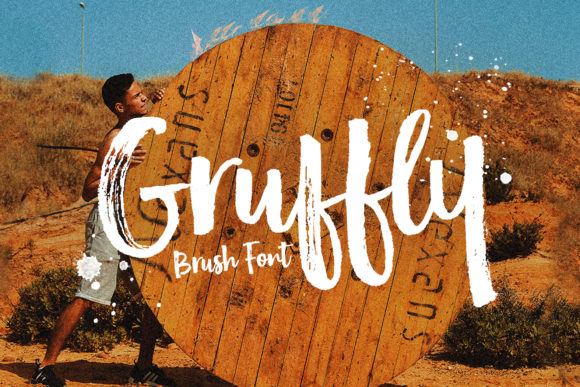
**Introducing Gruffly: Unleash Your Wild and Sassy Side with Our Boldest Script Font**
Prepare to embark on a thrilling typographic adventure with Gruffly, the font that embodies the raw energy of untamed spirits. Crafted with meticulous attention to detail by the masterminds at Stripes Studio, this script font is a masterpiece of rough-hewn charm that will leave you spellbound.
Gruffly is a font that refuses to be tamed, a wild stallion galloping across the digital plains. Its bold strokes dance upon the page, capturing the untamed essence of human emotion. Whether you're crafting a wild and captivating poster or designing a logo that roars with personality, Gruffly is the perfect font to unleash your inner rebel.
With every letterform imbued with a touch of sass and a hint of mischief, Gruffyly invites you to break free from the mundane and embrace your wild side. Its rough edges and playful curves are a breath of fresh air, reminding you that life's too short to play it safe.
But don't let Gruffly's untamed spirit fool you. Beneath its rugged exterior lies a heart of gold. This font is incredibly versatile, ready to adapt to any design challenge you throw its way. Whether you're creating invitations that exude a touch of whimsy or designing brochures that demand attention, Gruffly has the power to transform your words into a captivating visual symphony.
So why settle for ordinary when you can embrace the extraordinary? Unleash the power of Gruffly and let your words roar with untamed passion and wild abandon. It's time to let your creativity run free and explore the limitless possibilities that await you with this bold and beautiful script font.
**Dare to be different. Dare to be Gruffly.**